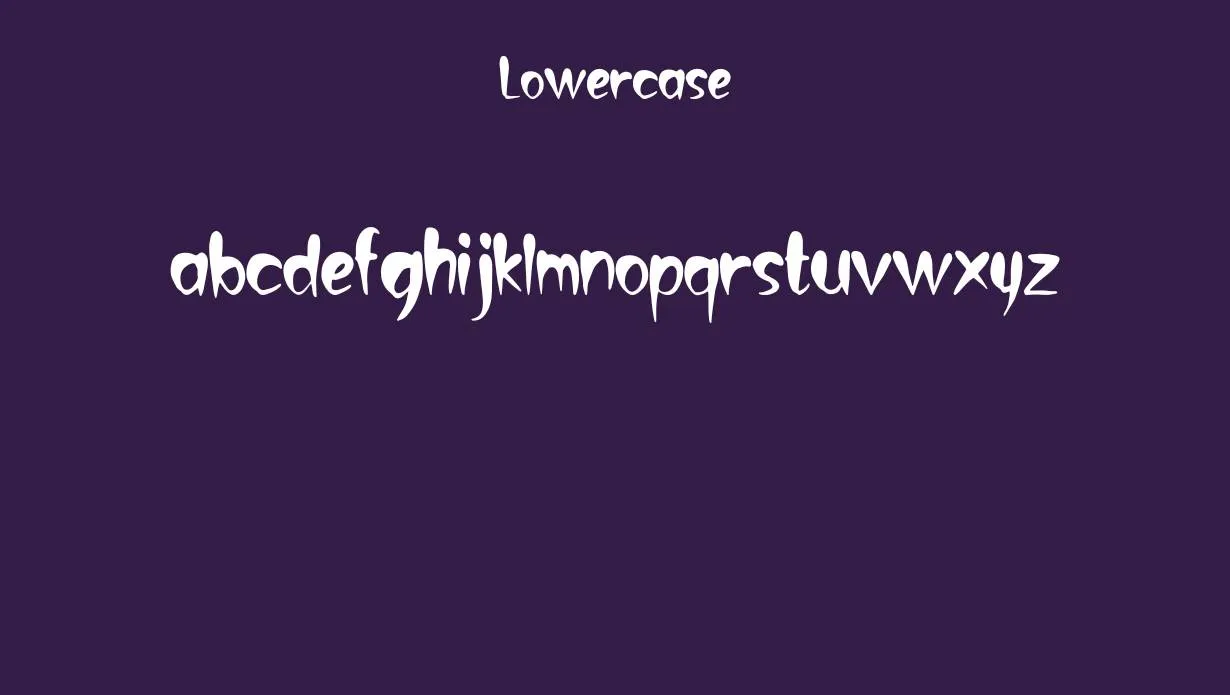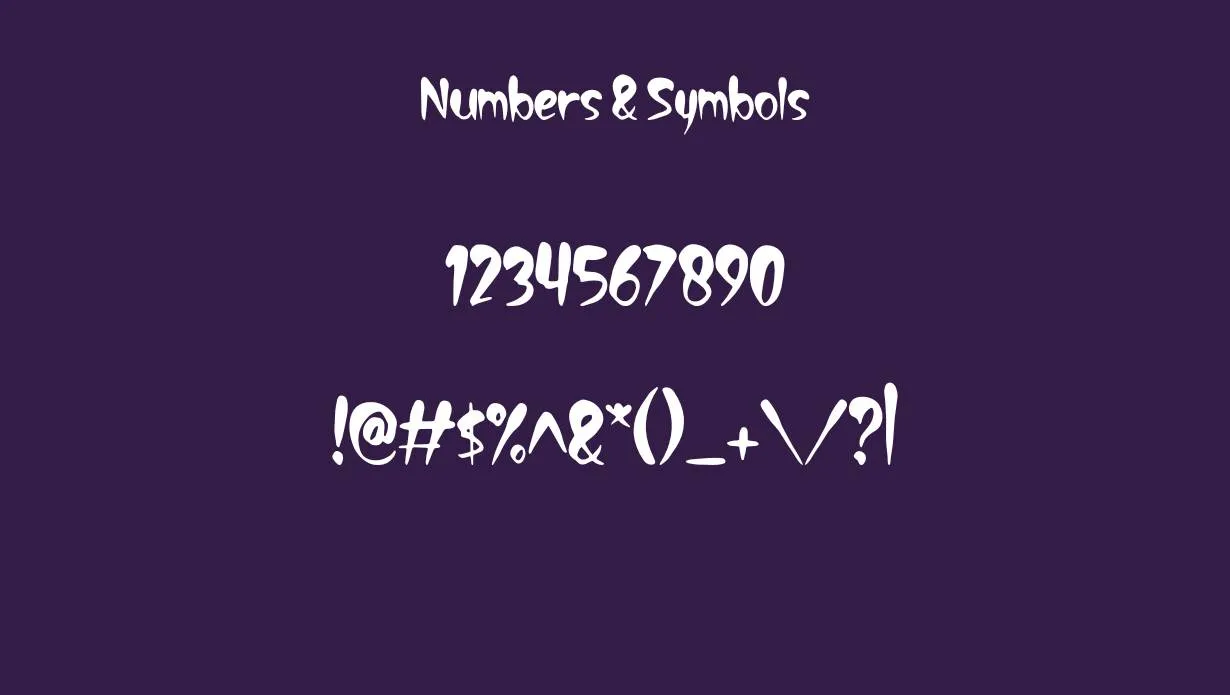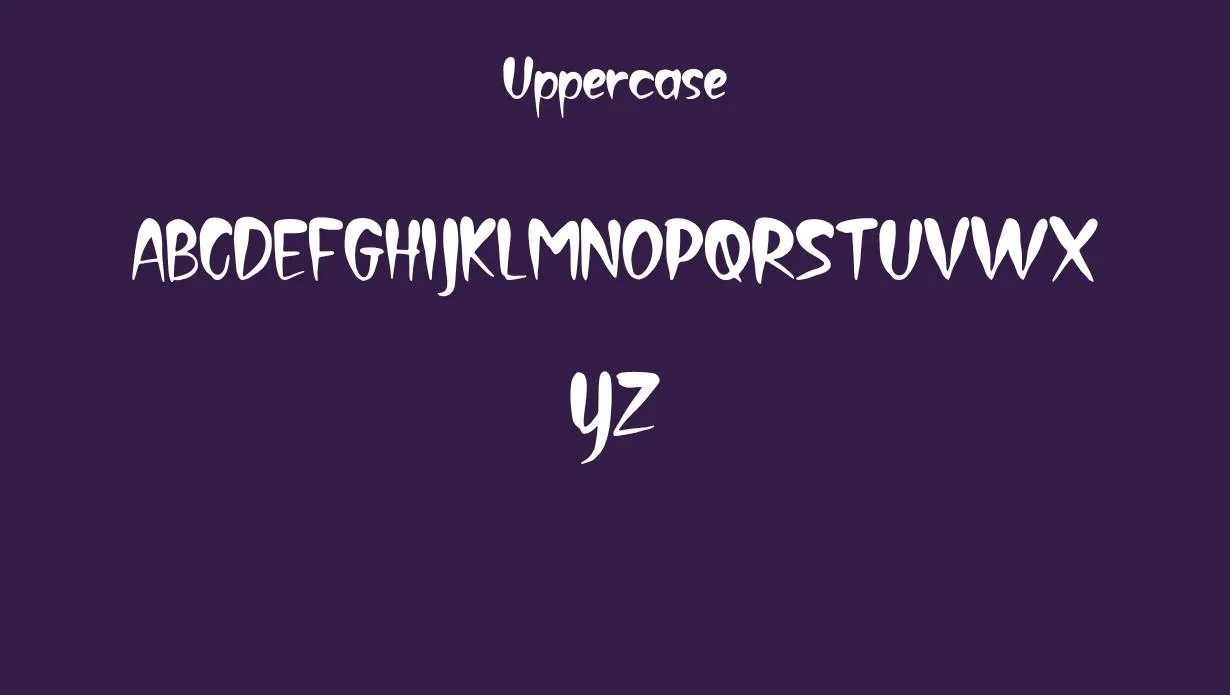
The Creepy Face Font was designed by a famous typographic designer named Forberas Club. It has capital letters, small punctuation, special characters, glyphs, and numerals 0 to 9 are all available in this font.
Each character differs in appearance and personality. It has the same characteristics as the finger paint font. There are 220 fascinating glyphs and more than a hundred fashionable characters included. You can create this font with a thick texture online by using the generator tool. It is the fancy text style.
Creepy Face Font Family